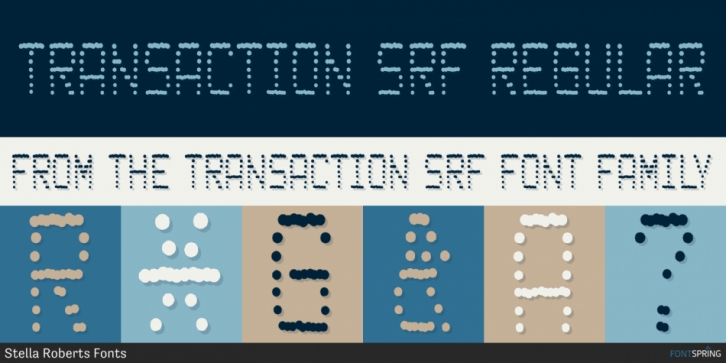
Transaction SRF is a display font published by Stella Roberts Fonts.
Leave it to Ray Larabie to come up with an interesting typeface that looks as if it were printed straight out a store’s register.  Stella Roberts Fonts presents Transaction SRF, the
Perfect font for emulating cash register receipts and adding machine tapes.